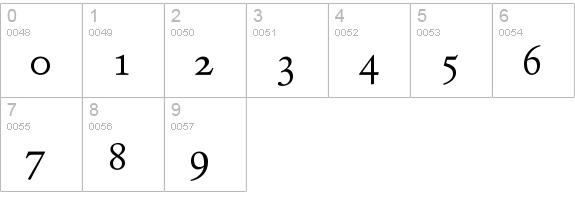
RenardNo3-Roman is a captivating font that exudes elegance and sophistication. With its sleek and stylish design, this font is perfect for adding a touch of class to any project. The clean lines and balanced proportions of RenardNo3-Roman make it a versatile choice for a wide range of applications, from branding and advertising to print and digital media. One of the most appealing aspects of RenardNo3-Roman is that it is freely available to download at FontsMarket.com. This means that designers and enthusiasts alike can access this stunning font without any cost or restrictions. Whether you are a professional designer looking to enhance your creations or an amateur enthusiast eager to experiment with typography, RenardNo3-Roman is the perfect choice. With its extensive character set, RenardNo3-Roman offers a wide range of options for creative expression. From uppercase and lowercase letters to numerals, punctuation marks, and special characters, this font provides everything you need to bring your ideas to life. The attention to detail and craftsmanship evident in every letterform of RenardNo3-Roman is a testament to its quality and versatility. RenardNo3-Roman is a font that effortlessly combines tradition with modernity. Its timeless appeal makes it suitable for both classic and contemporary designs. Whether you are working on a vintage-inspired project or a cutting-edge branding campaign, RenardNo3-Roman is sure to make a lasting impression. In conclusion, RenardNo3-Roman is a stunning font that is freely available to download at FontsMarket.com. Its elegant design, extensive character set, and versatility make it a valuable asset for designers and enthusiasts alike. Embrace the beauty and power of RenardNo3-Roman and elevate your projects to new heights.